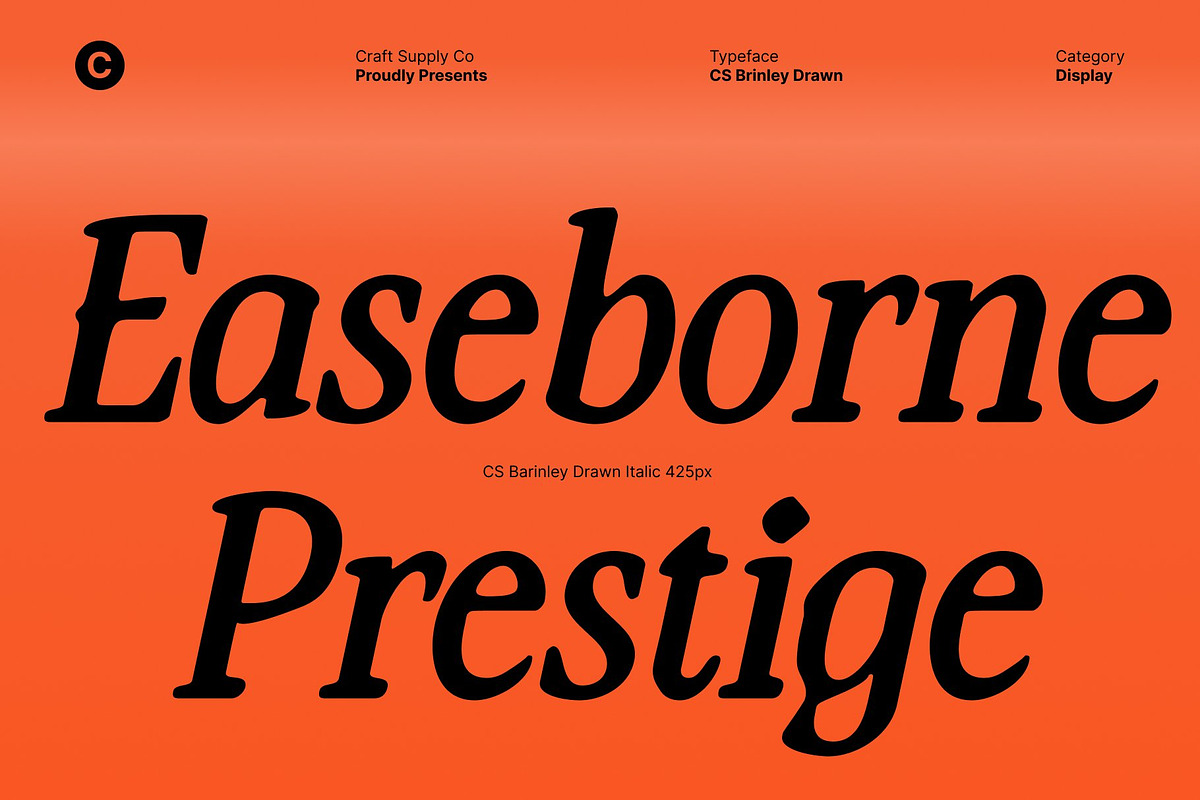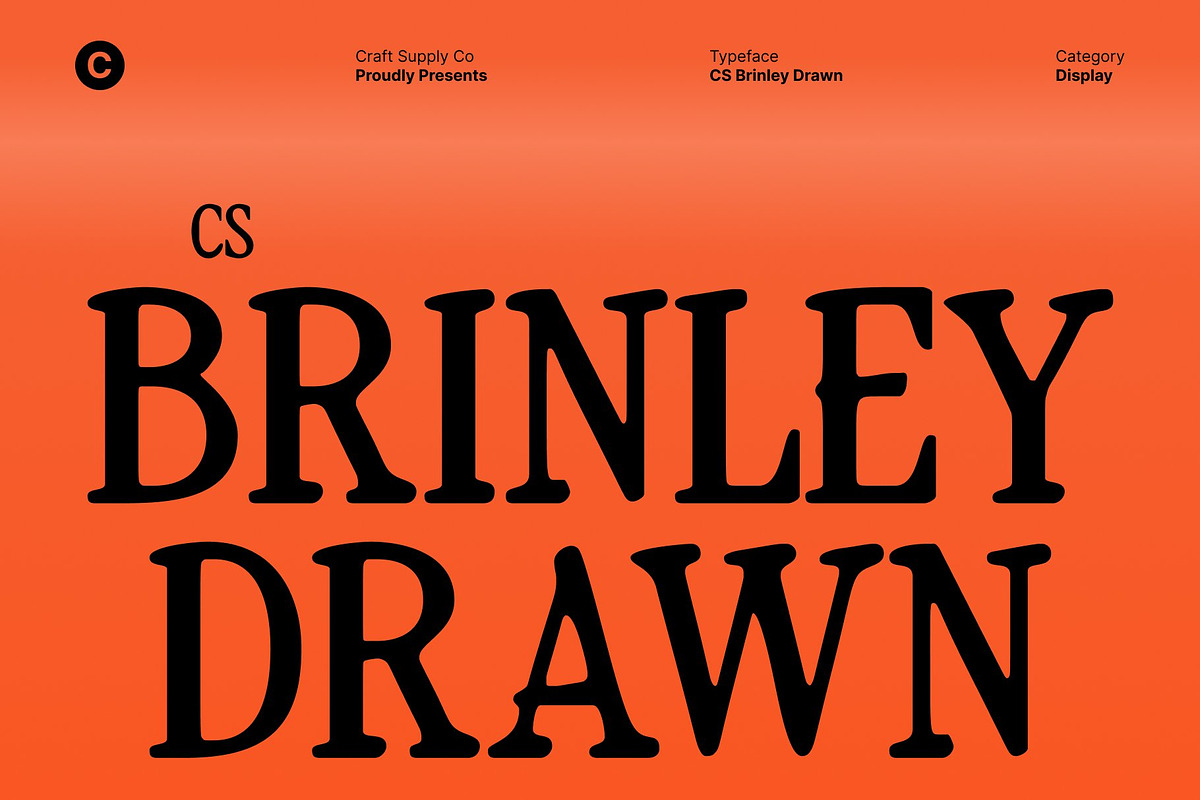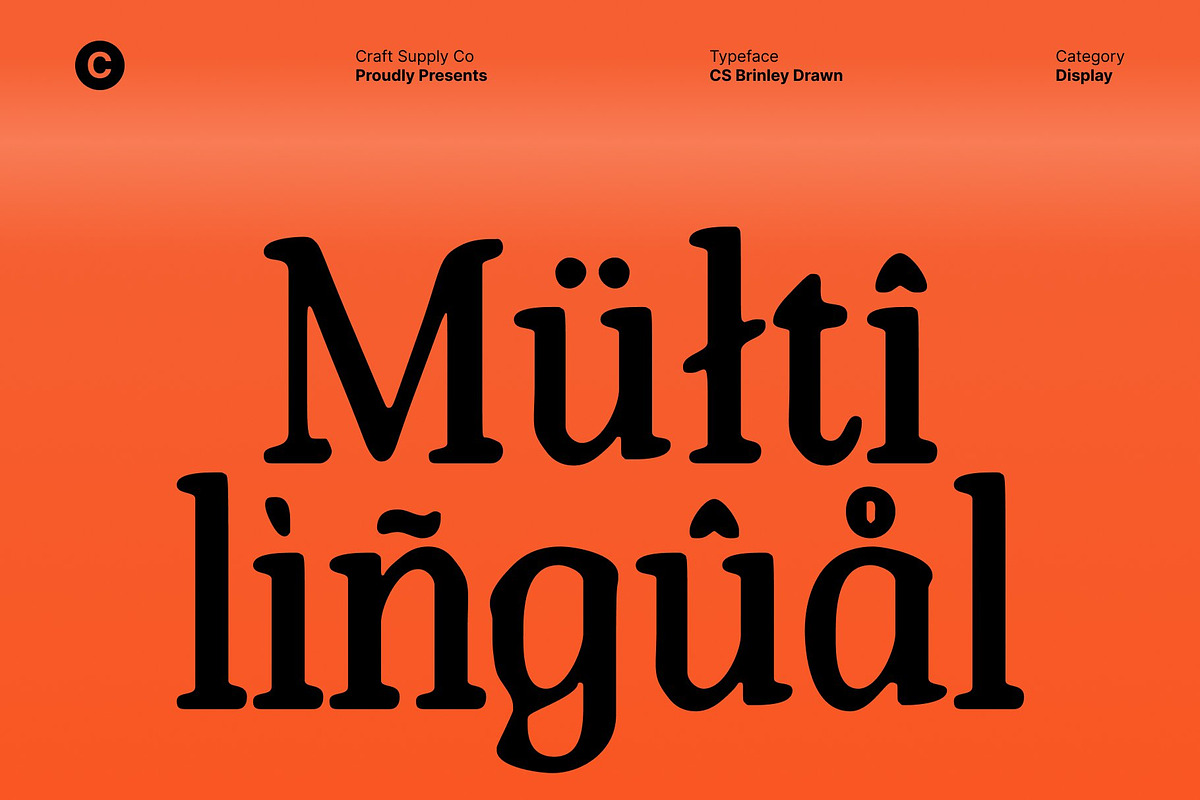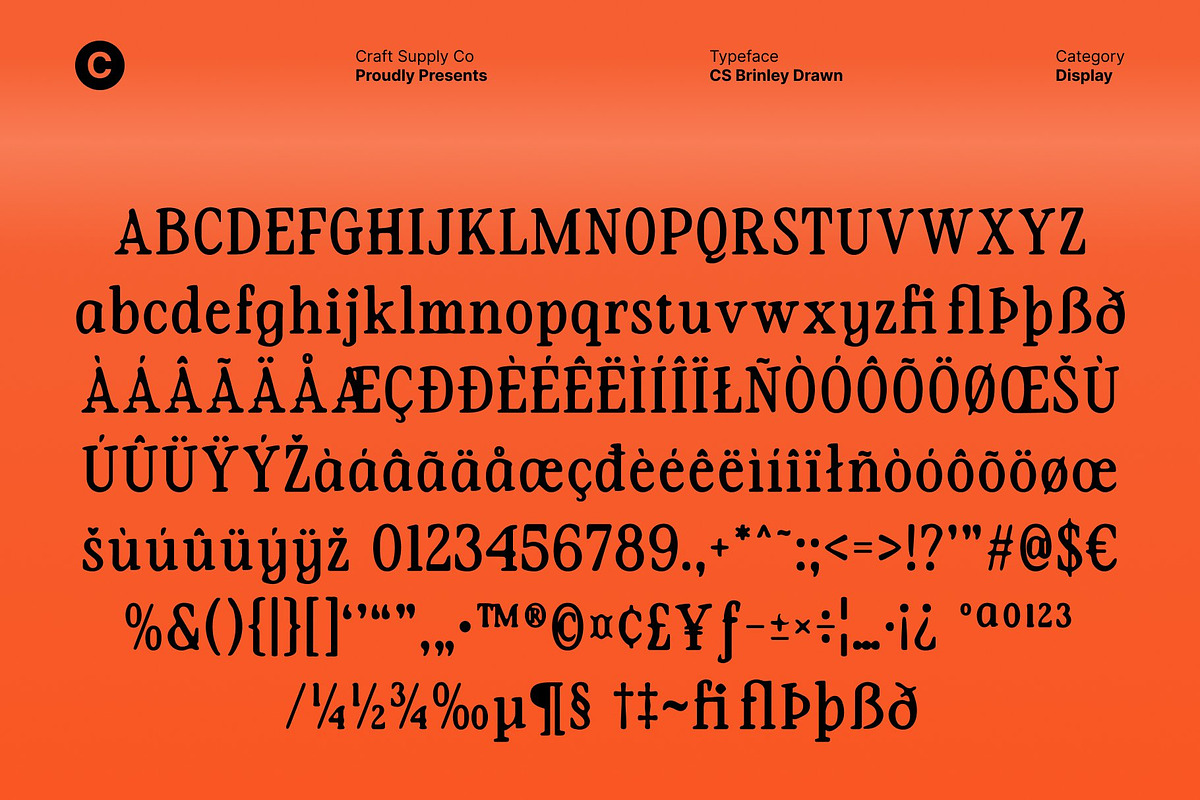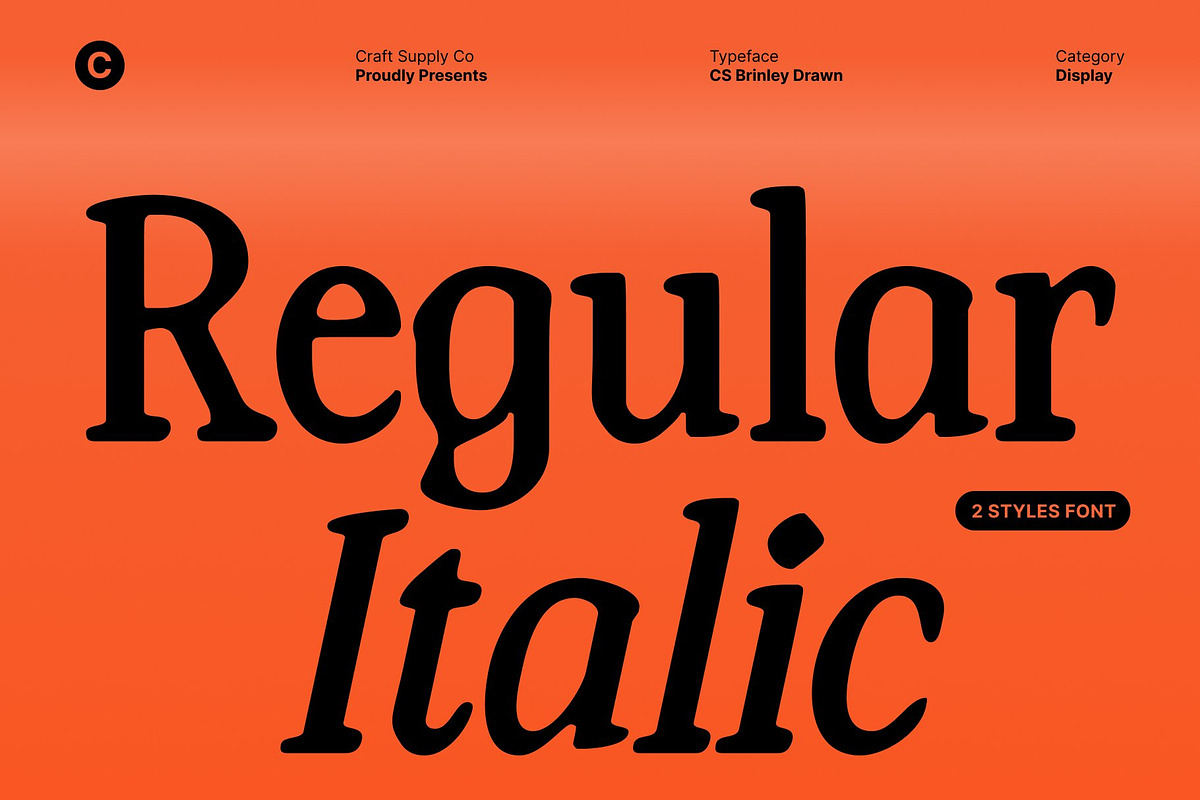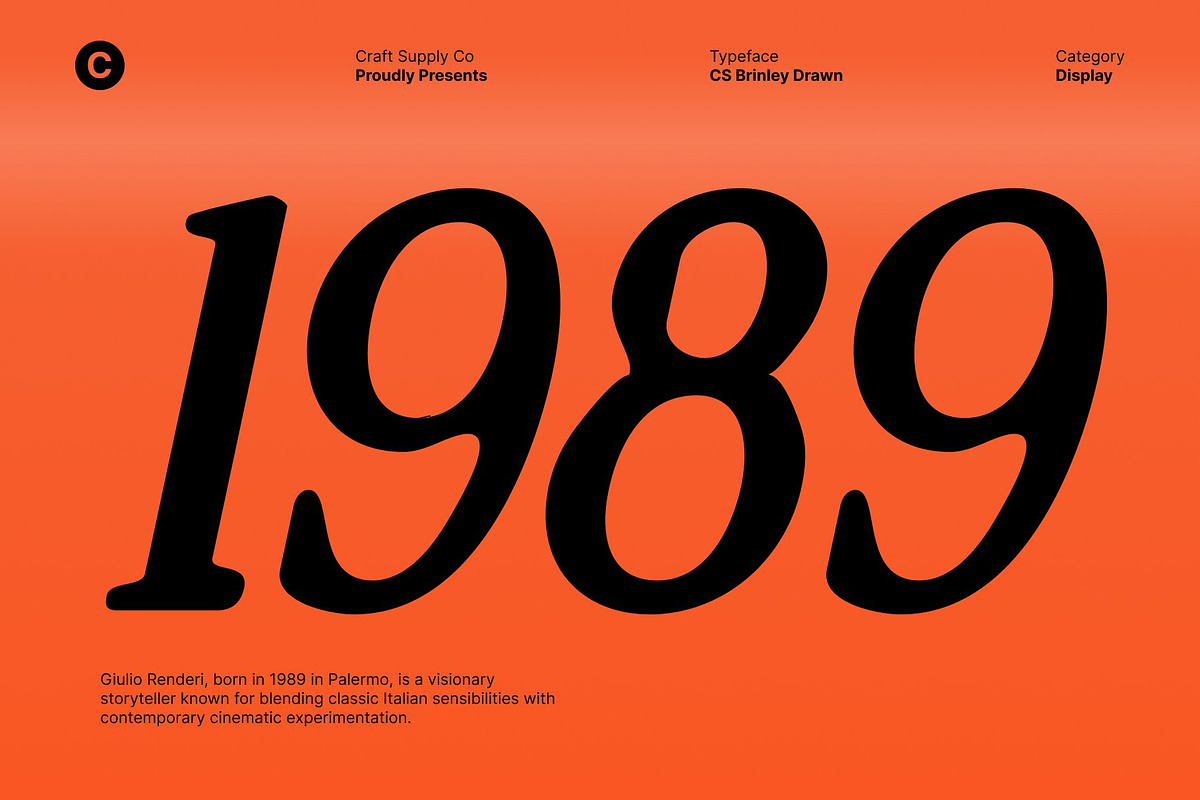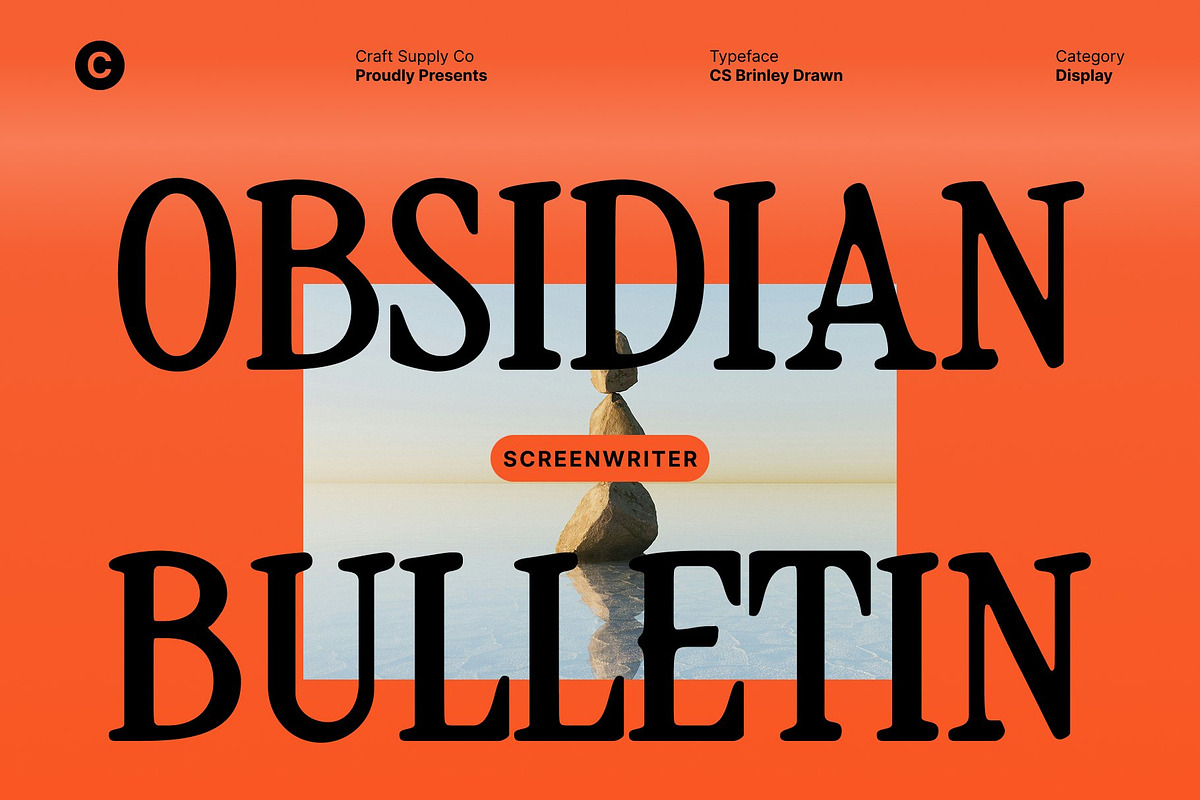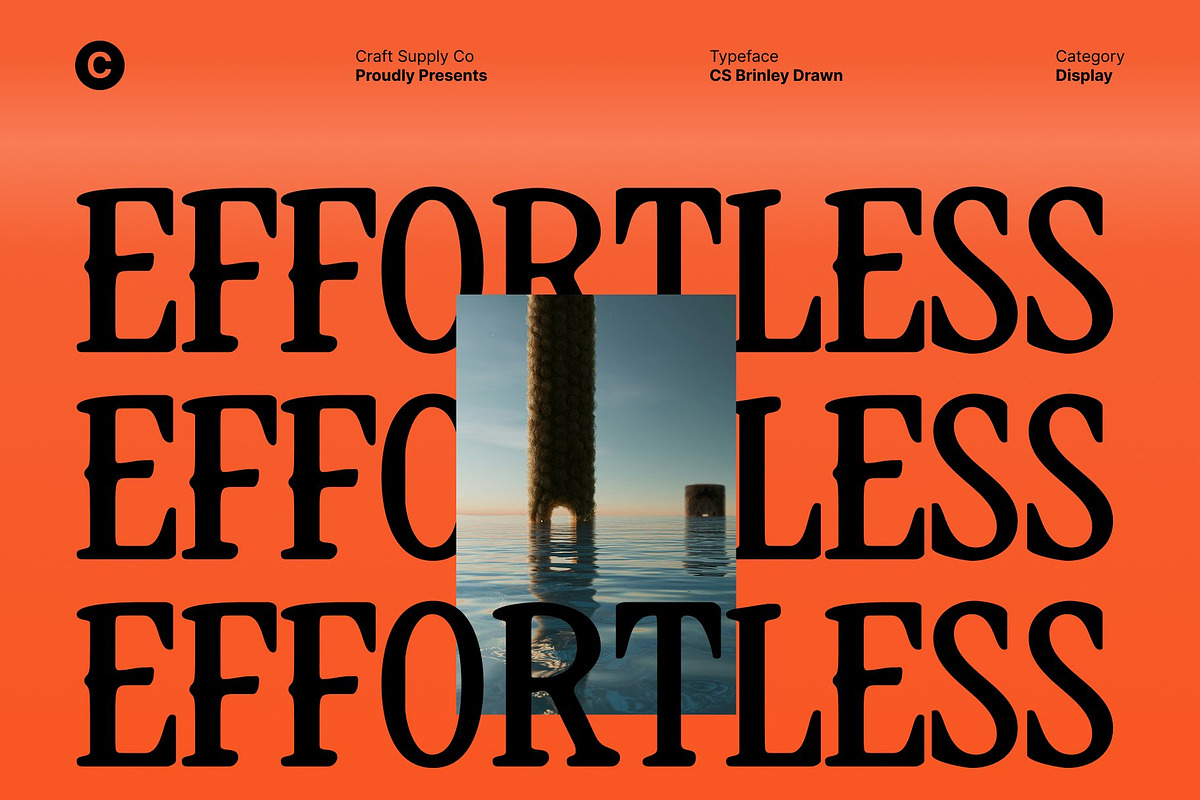
CS Brinley Drawn
CS Brinley Drawn – Modern Serif Font with Expressive Drawn Texture
Bold Letterforms with Timeless Structure This modern serif font features confident, bold lines that give each character a strong yet refined presence. Its well-crafted proportions balance classic serif foundations with contemporary styling, resulting in a typeface that feels timeless while remaining visually fresh.
Drawn Texture for Personality and Artistic Expression The drawn texture adds a handcrafted layer that brings warmth, personality, and emotional depth to the letterforms. Subtle irregularities and organic strokes create an expressive, artistic feel, transforming the font from purely structured typography into something more human and visually engaging. This texture softens the bold forms while enhancing their character, giving the font a distinctive artistic voice.
Perfect for Branding, Posters, and Editorial Layouts Ideal for branding identities, posters, magazine layouts, book covers, and creative editorials, this font adapts beautifully across both print and digital applications. Its bold serif presence commands attention in headlines, while its artistic detailing adds sophistication and uniqueness to visual storytelling.
A Balance of Timeless Design and Creative Artistry By merging modern serif construction with expressive drawn texture, this font achieves a harmonious balance between tradition and creativity. It is an excellent choice for designers seeking a typeface that feels classic yet artistic, bold yet refined perfect for projects that demand both visual strength and creative personality.